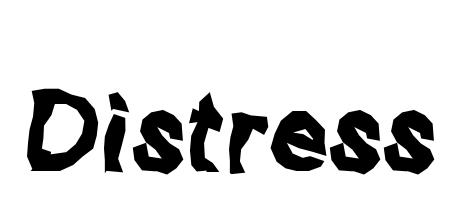
DCC Sharp Distress Black
Distress is a bold, rugged display font. Its chunky, uneven letterforms evoke a distressed or worn-out look. The sharp angles and jagged edges create a sense of urgency and intensity, perfect for capturing attention. The irregular stroke weights add to the raw, handmade aesthetic. It feels powerful and slightly chaotic.